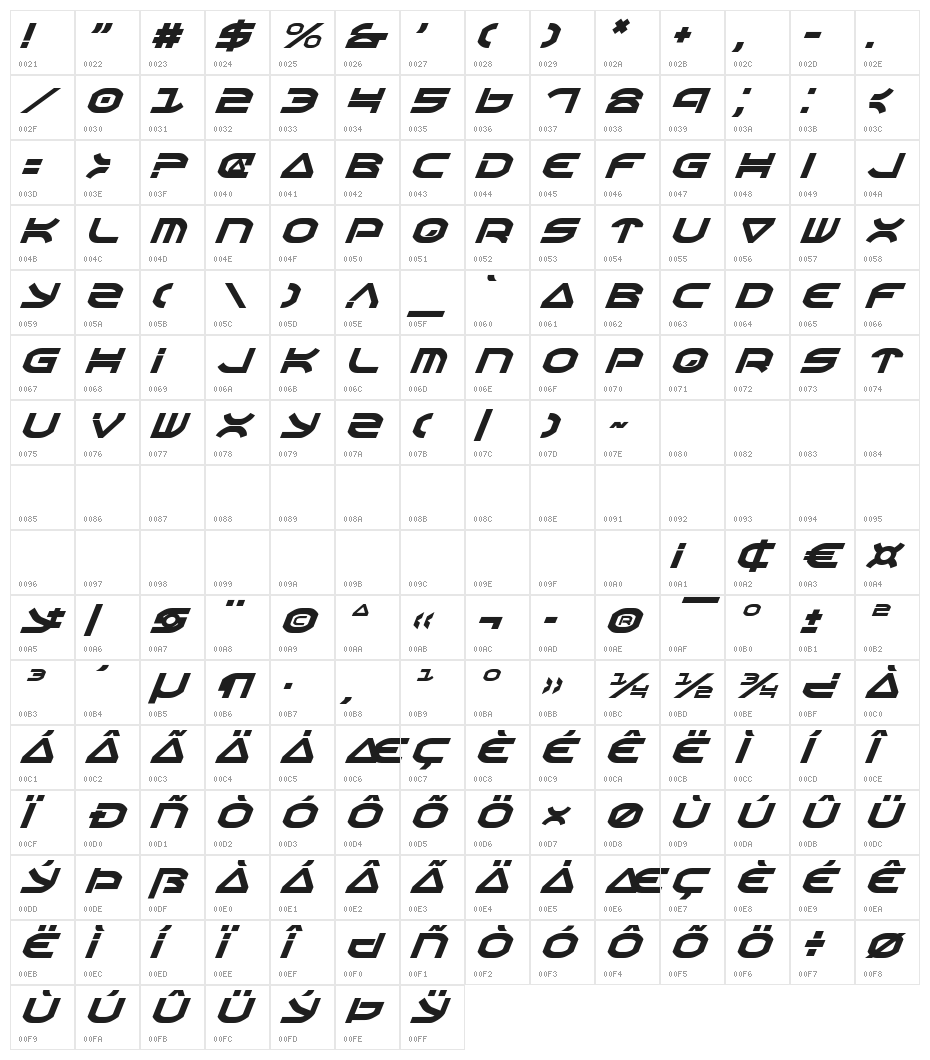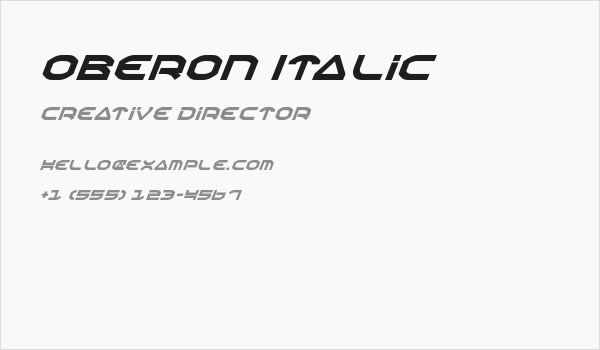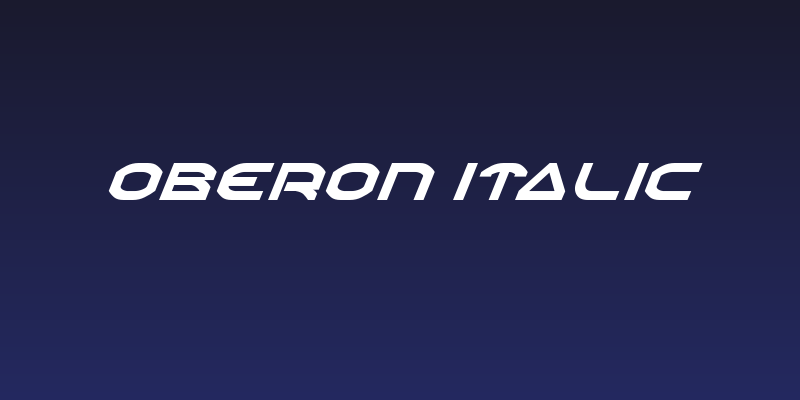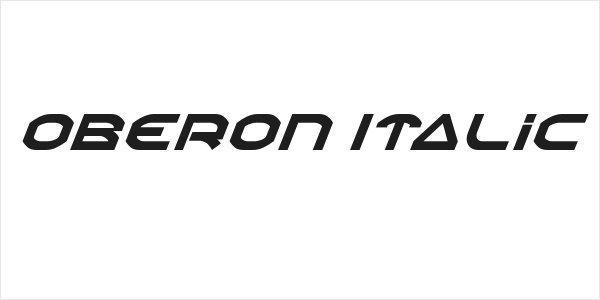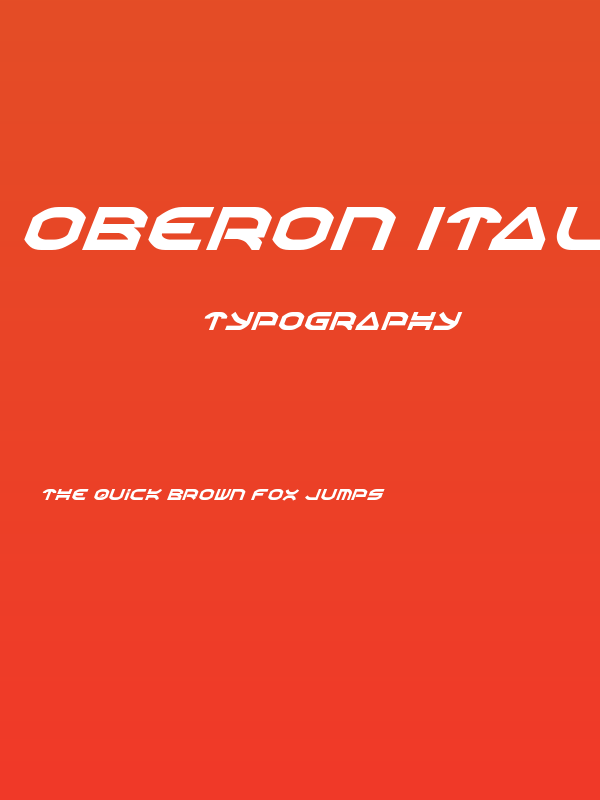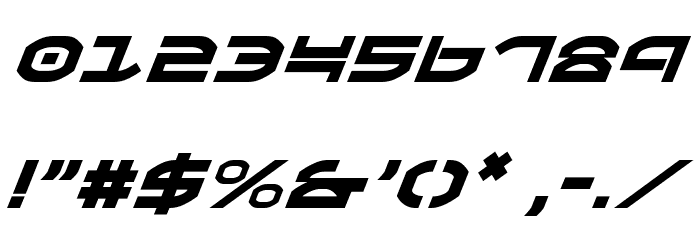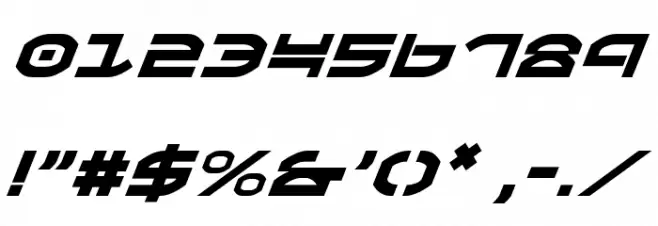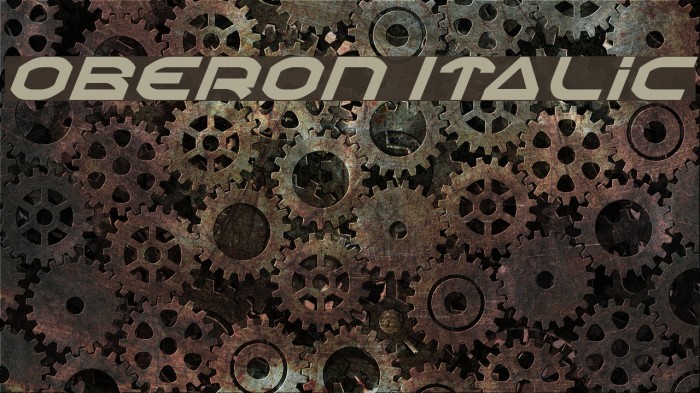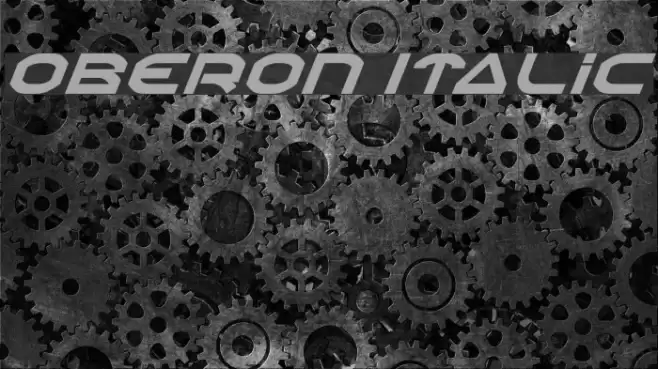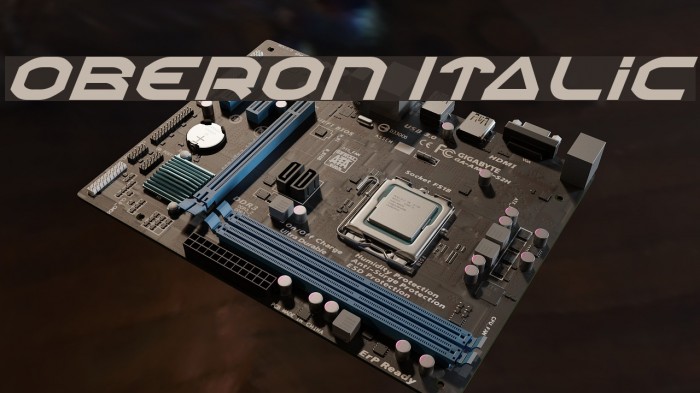
Oberon Italic Font
Oberon Italic Description
This font features a futuristic and dynamic design with sharp angles and a forward-leaning italic style. The characters are bold and geometric, with a consistent slant that gives a sense of speed and movement. The uppercase and lowercase letters maintain a uniform style, with unique cutouts and shapes that add to its modern aesthetic. Numbers and special characters are designed to match the overall theme, providing a cohesive look across all glyphs. The font is highly stylized, making it suitable for projects that require a strong visual impact.
| Overall Style | Futuristic |
| Proposed Projects | Ideal for sci-fi themed designs, video game titles, technology branding, and dynamic posters. |